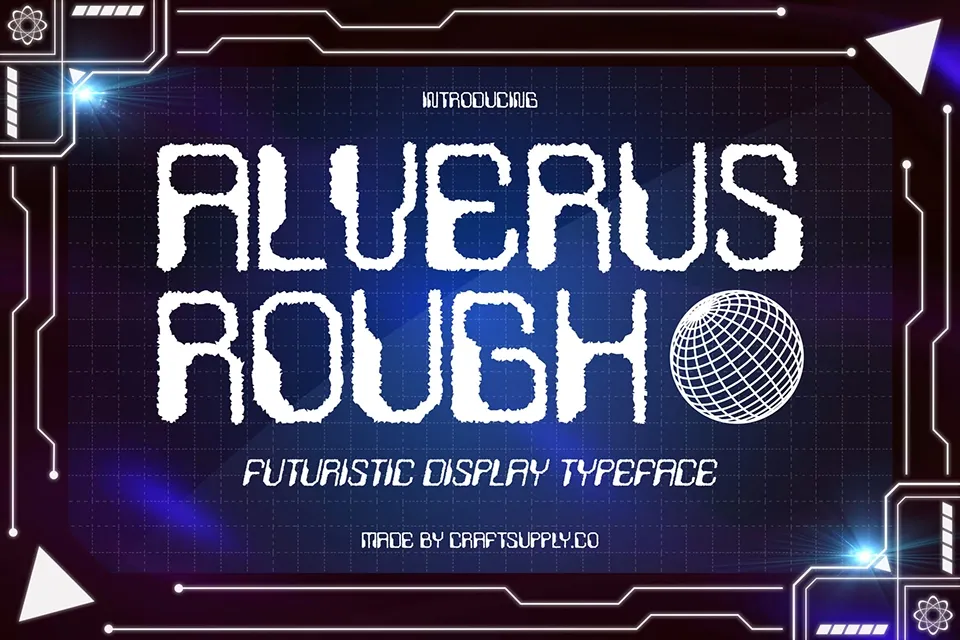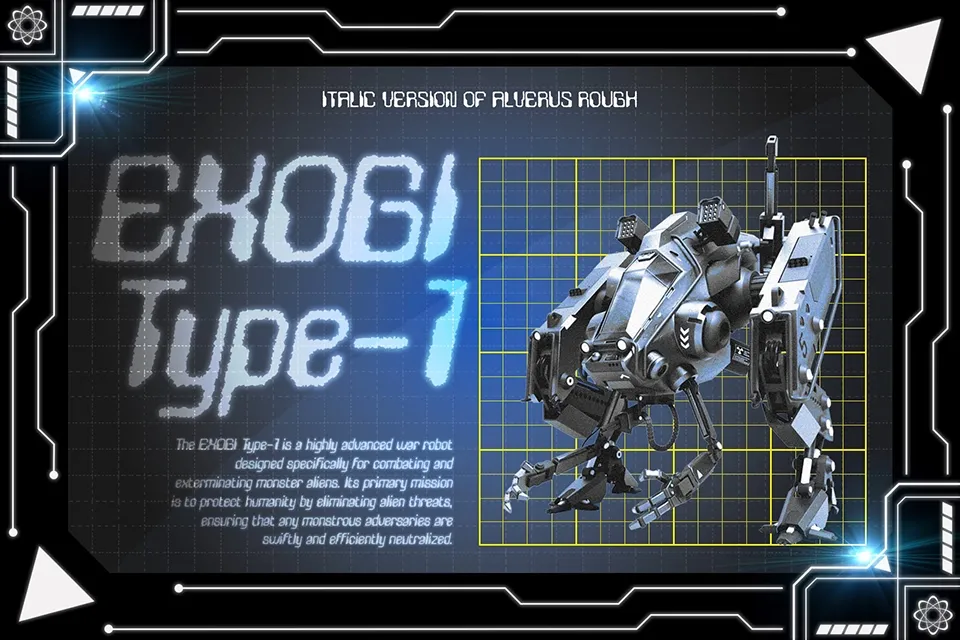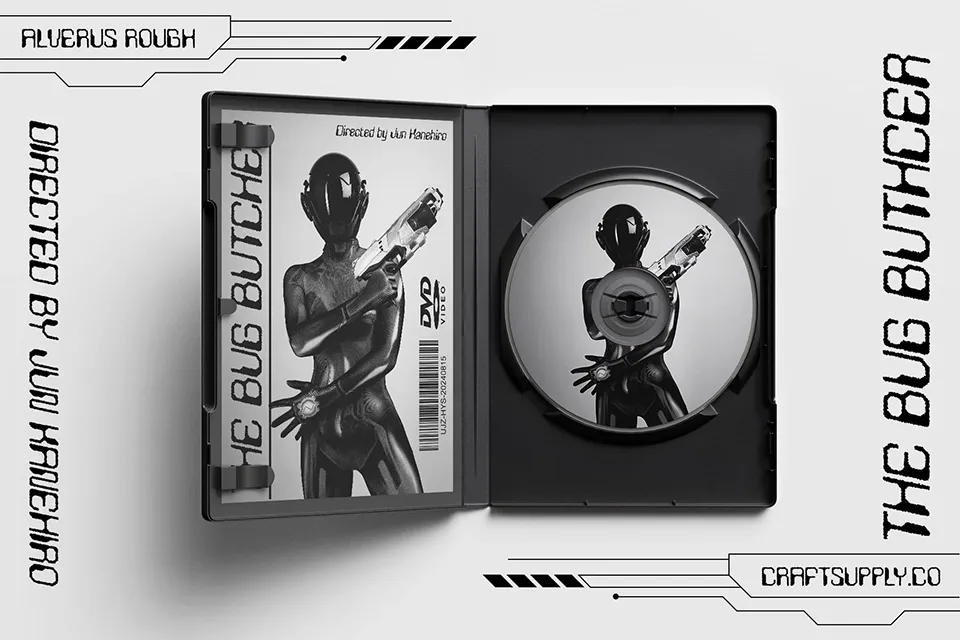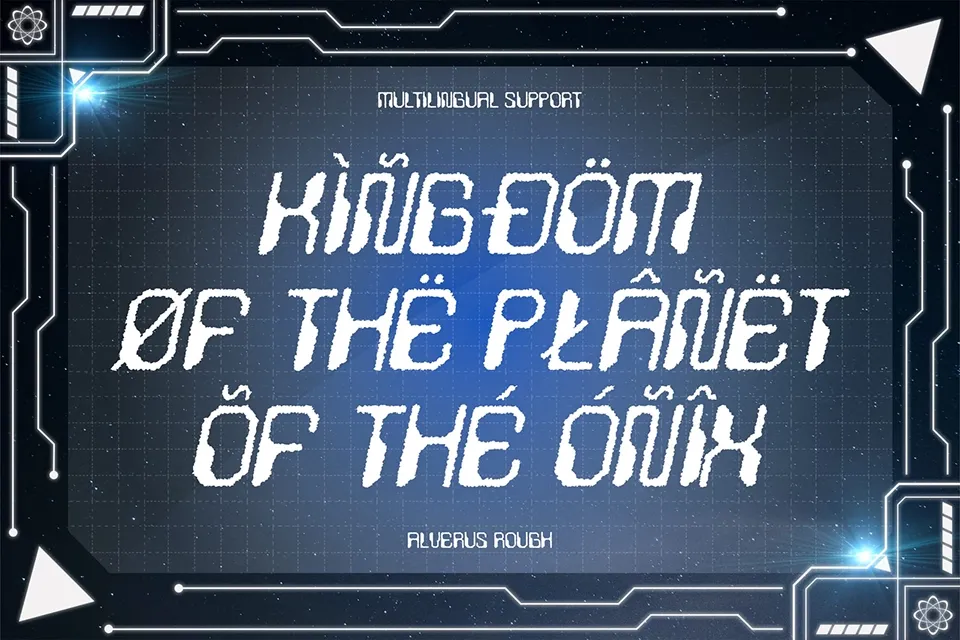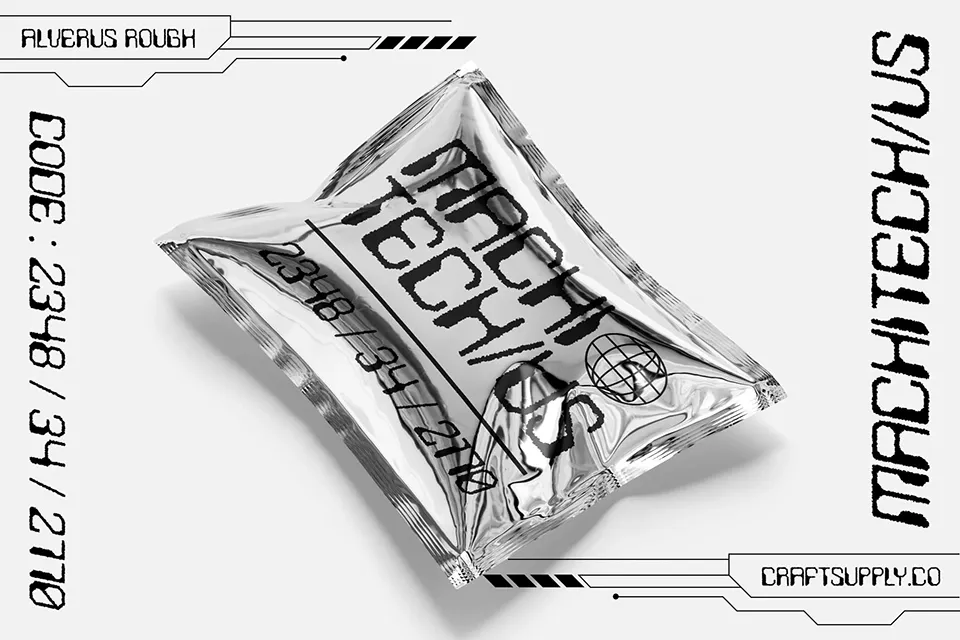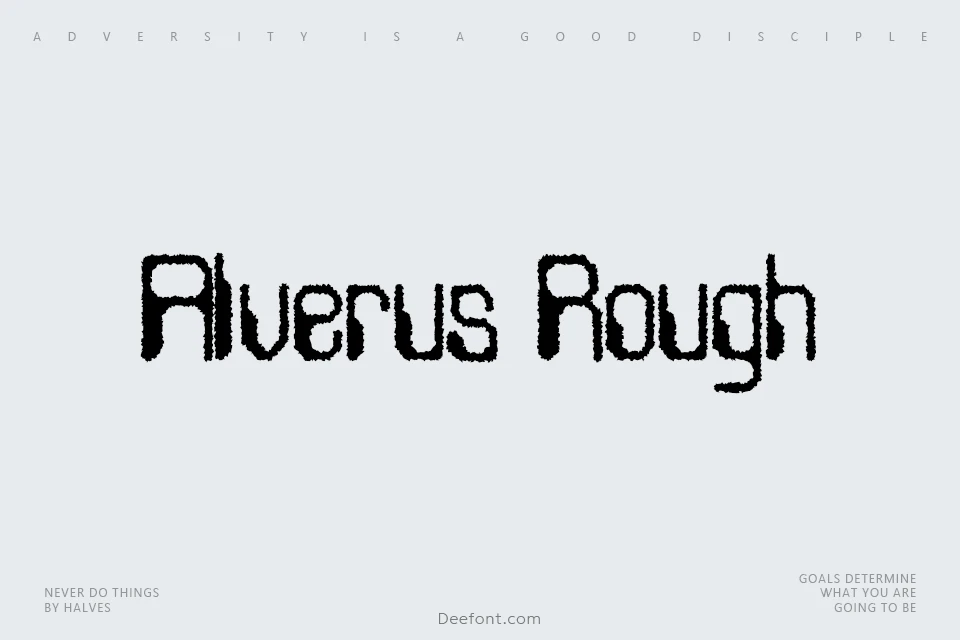
Alverus Rough Font
Alverus Rough Font is a dynamic futuristic display typeface inspired by Gundam aesthetics. It features bold, angular shapes and a rugged, mechanical texture, creating a striking visual impact perfect for high-tech, sci-fi-themed, and innovative design projects. The font’s unique blend of geometric letterforms and rough finish delivers a sophisticated, authentic, and visually powerful appearance, making it ideal for tech-focused branding, digital media, and standout promotional materials.